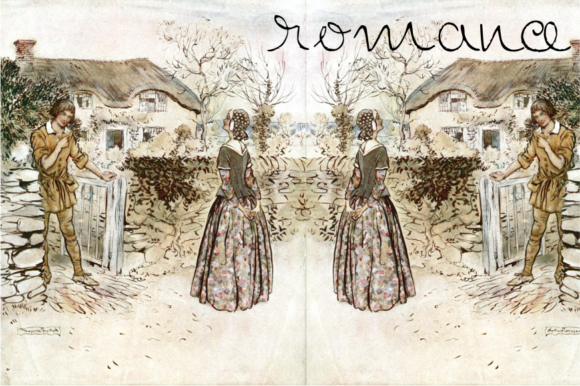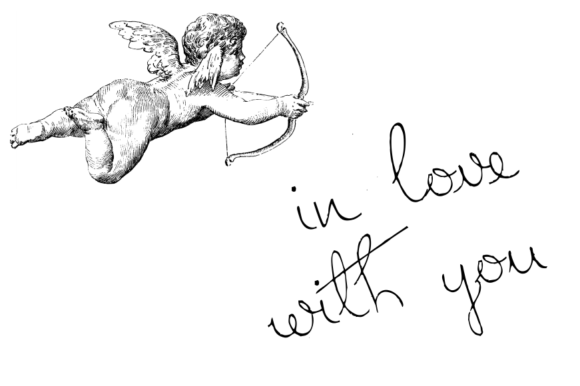
The Dreamer Font: A Beautiful, Youthful Script to Elevate Your Designs
I’ll never forget the time I was working on a project for a client’s wedding invitation suite. I had spent hours agonizing over the perfect layout, colors, and graphics, but something was still missing. As I scrolled through font after font, I just couldn’t seem to find the right fit. That was until I stumbled upon the Dreamer font. With its beautiful, youthful script and handwritten appeal, it added a touch of sincerity to the design that I just couldn’t replicate with any other font.
A Personal Review of Dreamer Font
- ✨ Beautiful, flowing script: The Dreamer font has a gorgeous, cursive feel that’s perfect for adding a touch of elegance to your designs.
- ✅ Highly legible: Despite its script nature, the Dreamer font is surprisingly easy to read, even at smaller sizes.
- 💕 Emotional connection: The handwritten appeal of this font makes it perfect for designs where you want to convey a sense of sincerity or personality.
While the Dreamer font is an amazing addition to any design project, there are a few things to keep in mind:
- 🤔 Limited use in very formal designs: While the Dreamer font is beautiful, its casual nature might not make it the best fit for very formal designs, such as corporate logos or resumes.
- Experiment with OpenType features, such as ligatures and stylistic alternates, to add more personality to your text.
The Story Behind Dreamer Font
The Dreamer font was created with the intention of capturing the essence of youthful energy and creativity. Its designer wanted to create a font that would add a touch of sincerity and personality to designs, while still being highly legible and versatile.
Q: What type of designs is the Dreamer font best suited for?
A: The Dreamer font is perfect for designs that need a touch of personality and sincerity, such as wedding invitations, branding materials, and social media graphics.
Q: Is the Dreamer font available in different weights or styles?